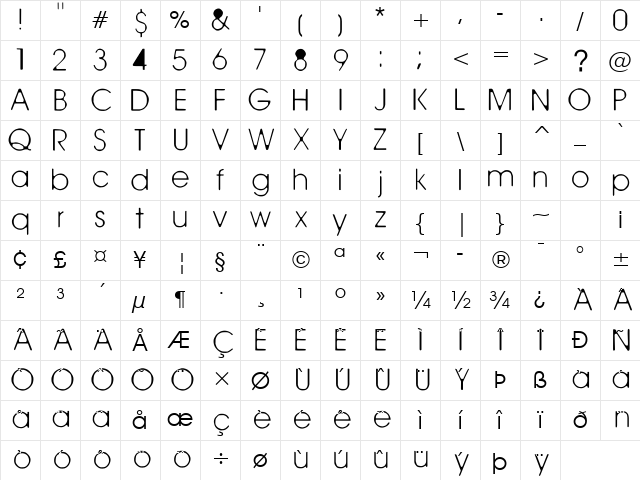
AvantGarde Bk BT Book
Complete AvantGarde Bk BT Book glyph index. Displaying only characters natively supported by AvantGarde Bk BT Book font.
Design Context for AvantGarde Bk BT
AvantGarde Bk BT is a composed and adaptable typeface that performs quietly and consistently across a wide range of design contexts.